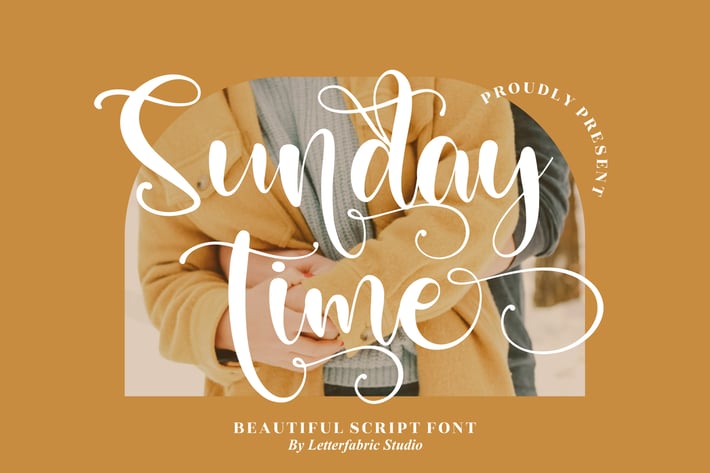
Sunday Time Script Font
Sunday Time is a beautiful script font with a unique, playful, and elegant style. Its flowing curves and delicate details make it a perfect choice for a wide variety of creative projects. Whether you're designing invitations, branding materials, or social media content, this font will add a sophisticated, personal touch to your designs. The charming nature of Sunday Time gives your projects an artistic and inviting vibe, making it ideal for all things creative.
+ Elegant, flowing script letterforms
+ Supports uppercase and lowercase letters, numerals, and punctuation
+ Perfect for print and digital media
+ Invitations & Stationery
+ Branding & Logo Design
+ Wedding Invitations & Greeting Cards
+ Social Media & Event Marketing
+ Custom Handwritten Designs
Give your designs a touch of elegance with Sunday Time's flowing script.
Design by Letterfabric Studio